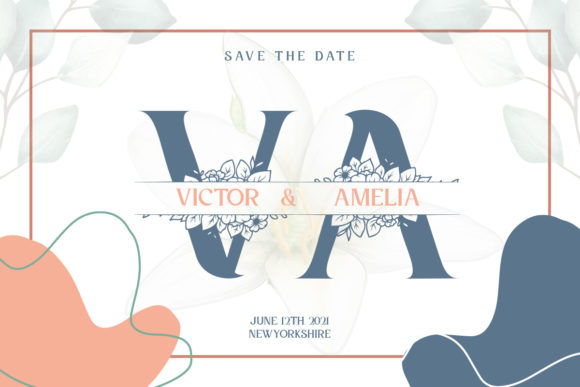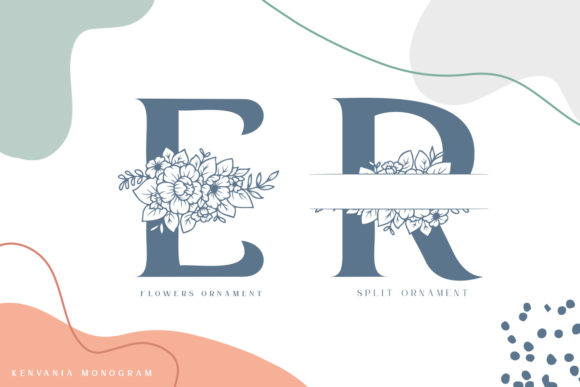
Kenvania Monogram Font
Kenvania Monogram Font is a cool and adaptable display font. This font is suitable for designs such as t-shirts, sportswear, posters, logos, advertisements, clothing, and more.
Kenvania Monogram Font is a cool and adaptable display font. This font is suitable for designs such as t-shirts, sportswear, posters, logos, advertisements, clothing, and more. Whatever the topic, this font will be a great asset to your font collection, as it has the potential to enhance any creation.